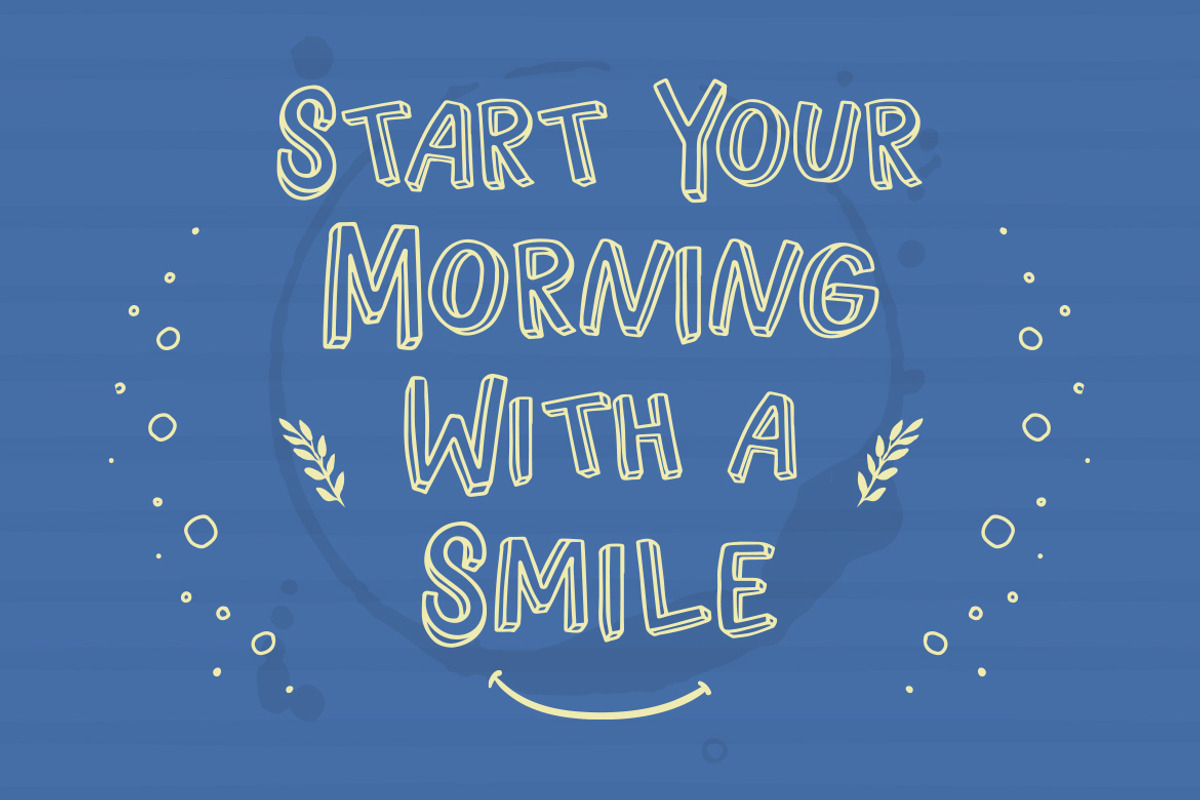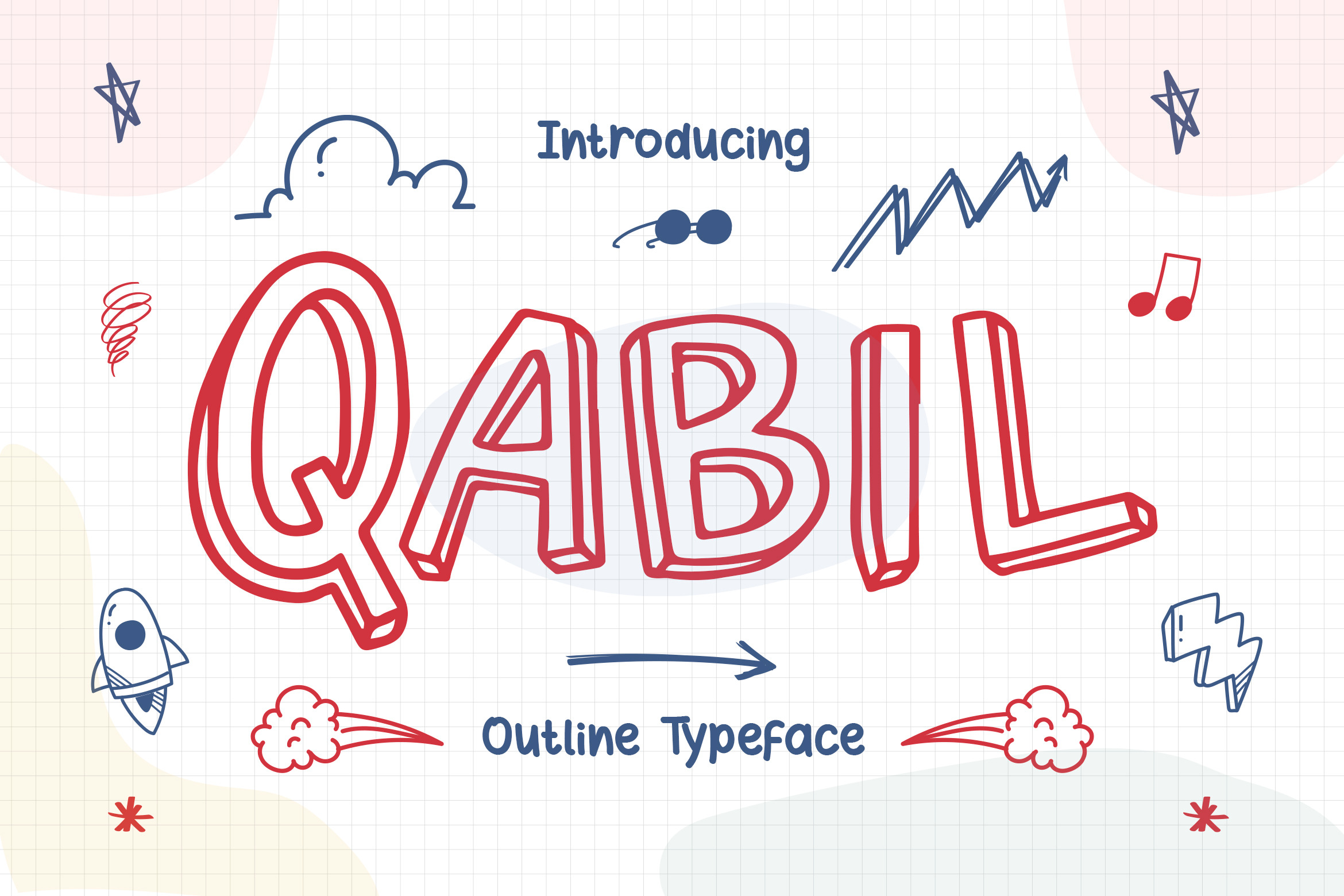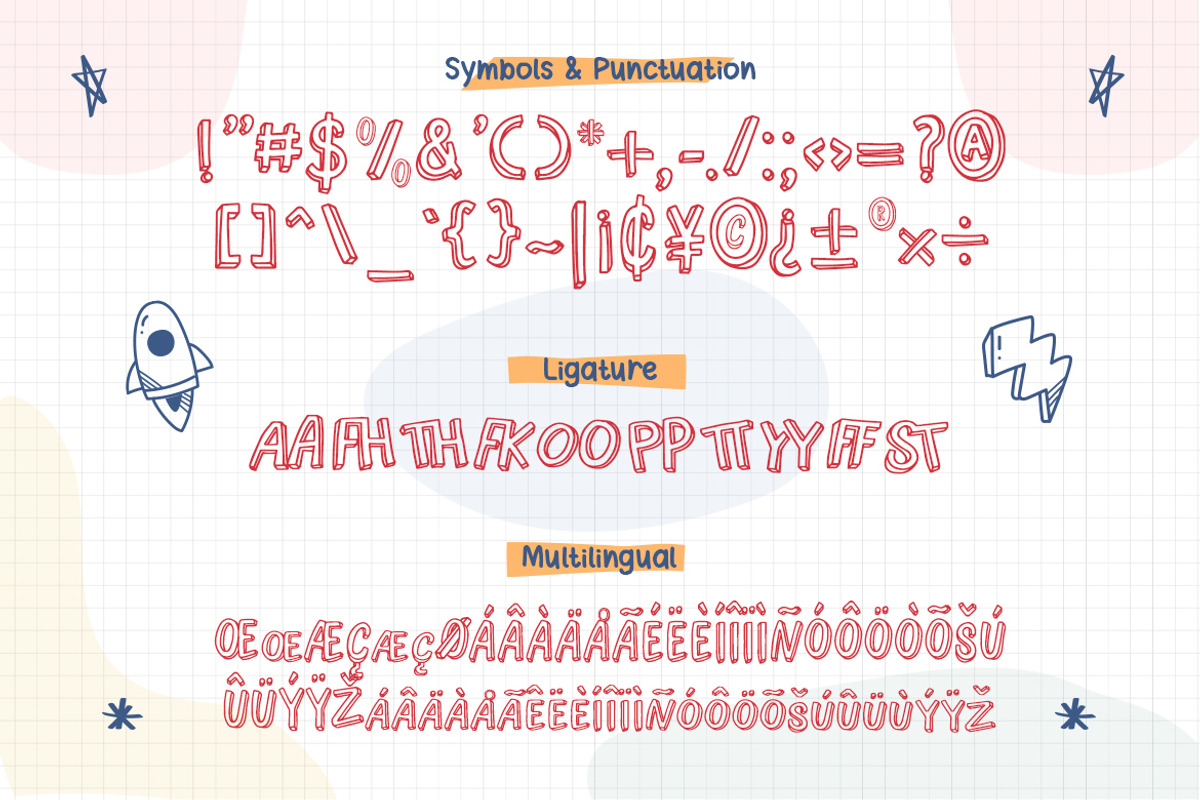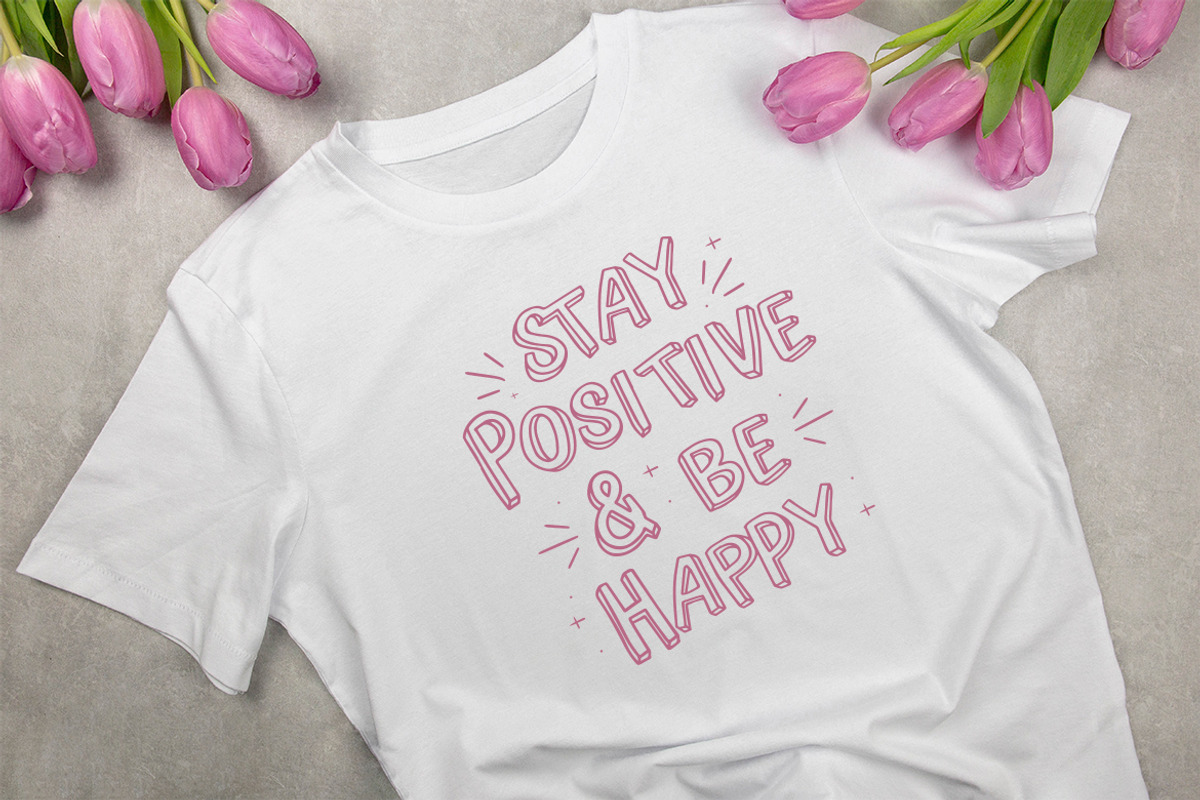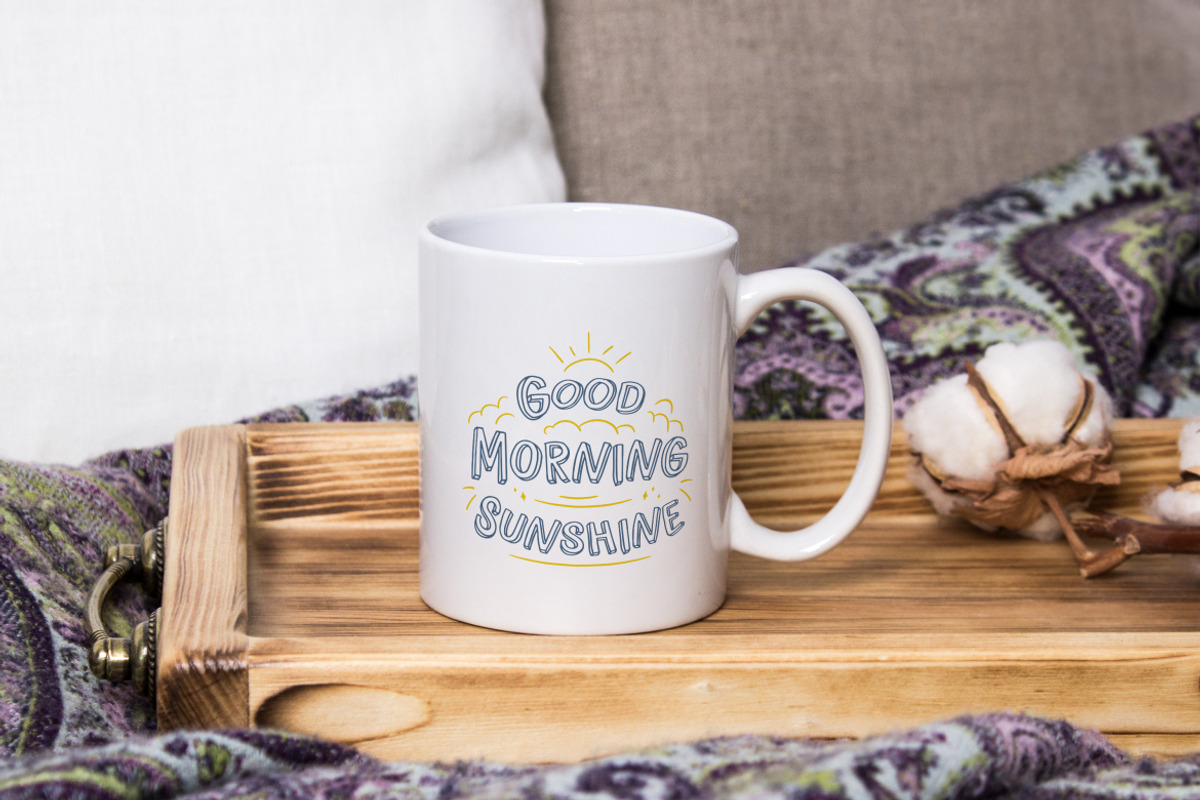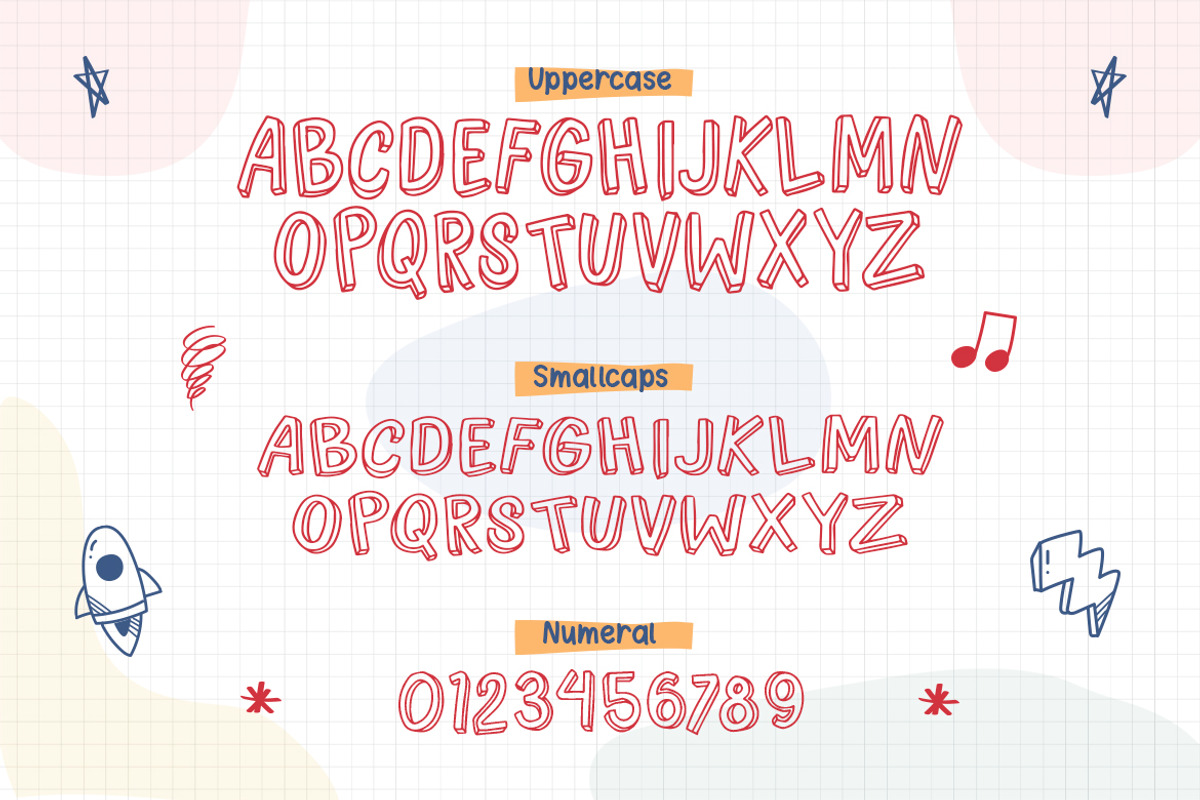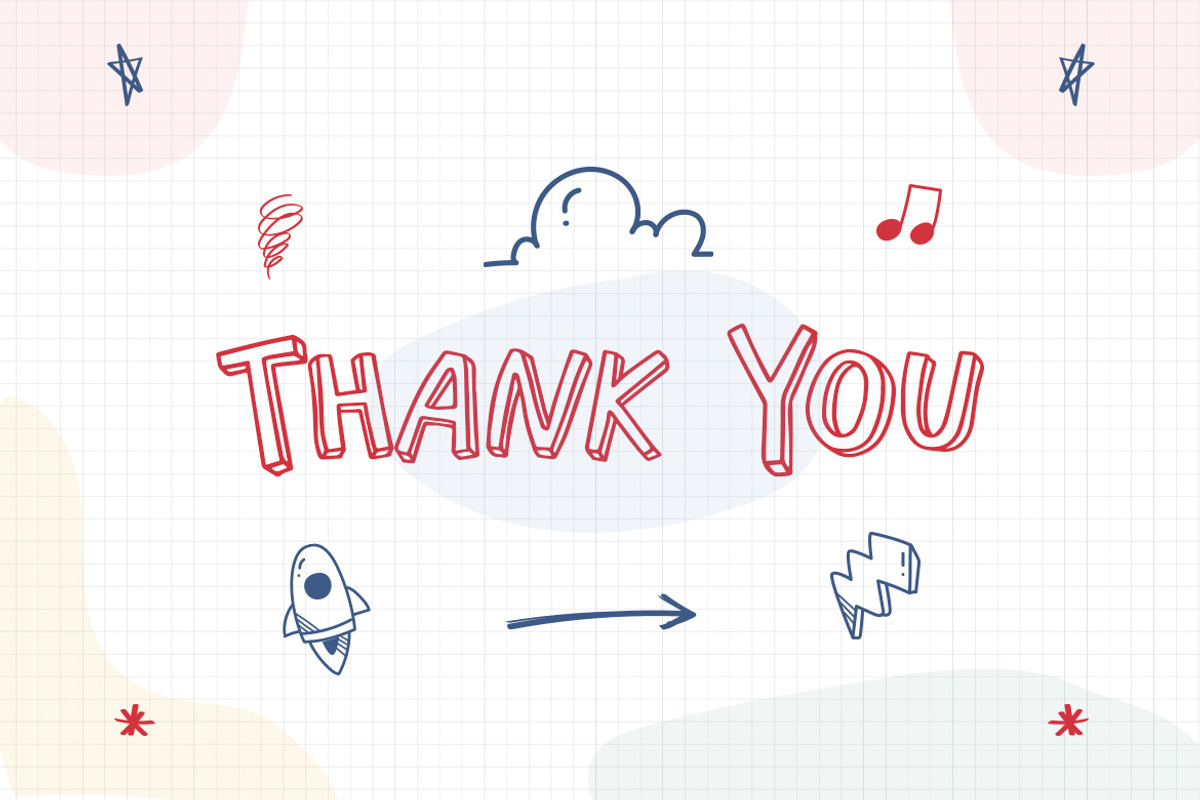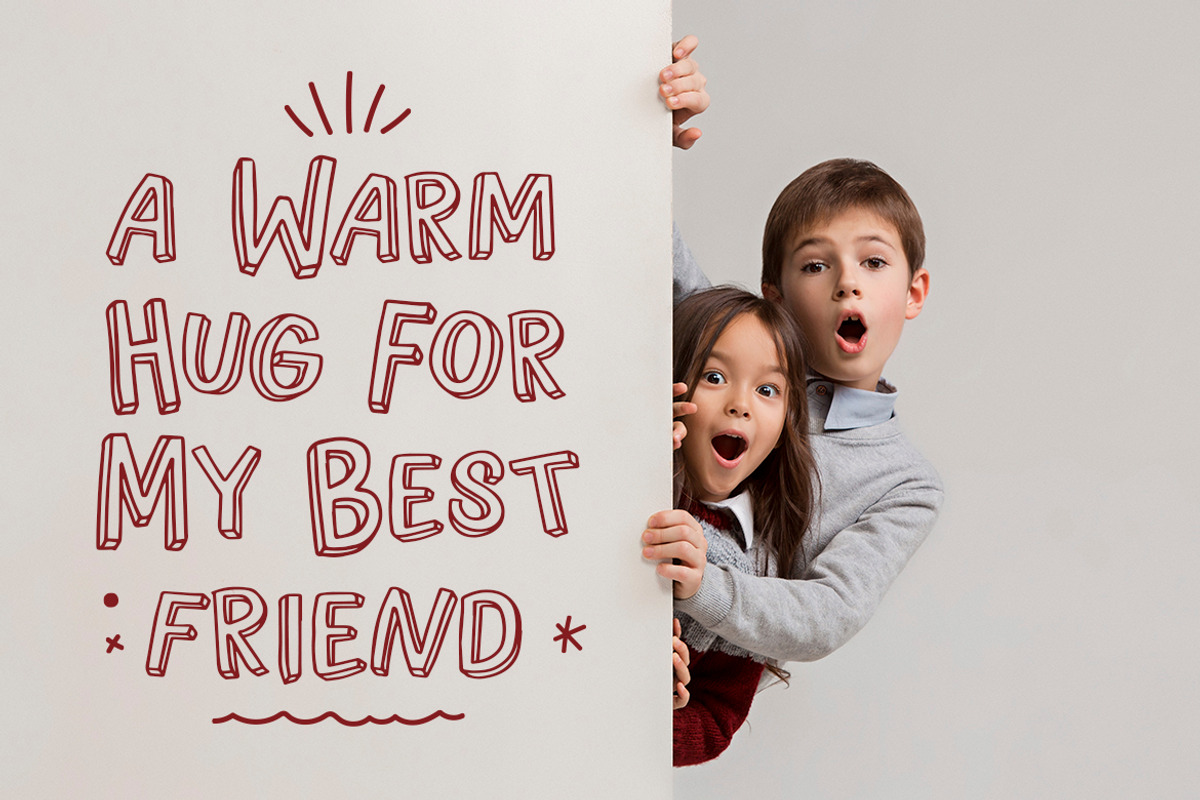
Qabil - Outline Typeface
Qabil Outline typeface is inspired by comic books. For digital lettering Qabil is an great option. This handy toolkit helps you easily letter your comic strips, but even if you have nothing to do with cartooning, this bundle can simply add some comic book feeling to your design.
- Smallcaps
- Symbols & Punctuation
- Numeral